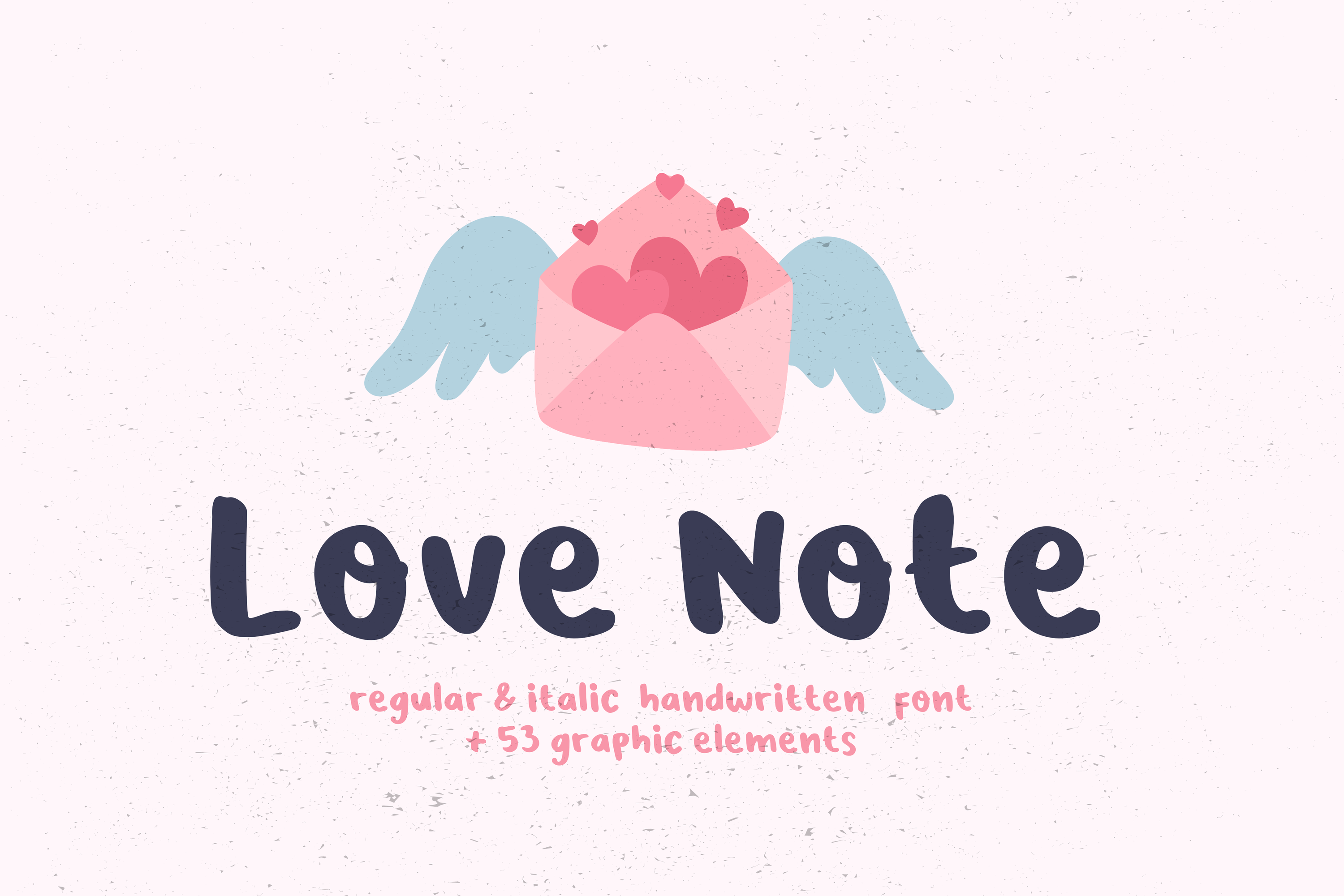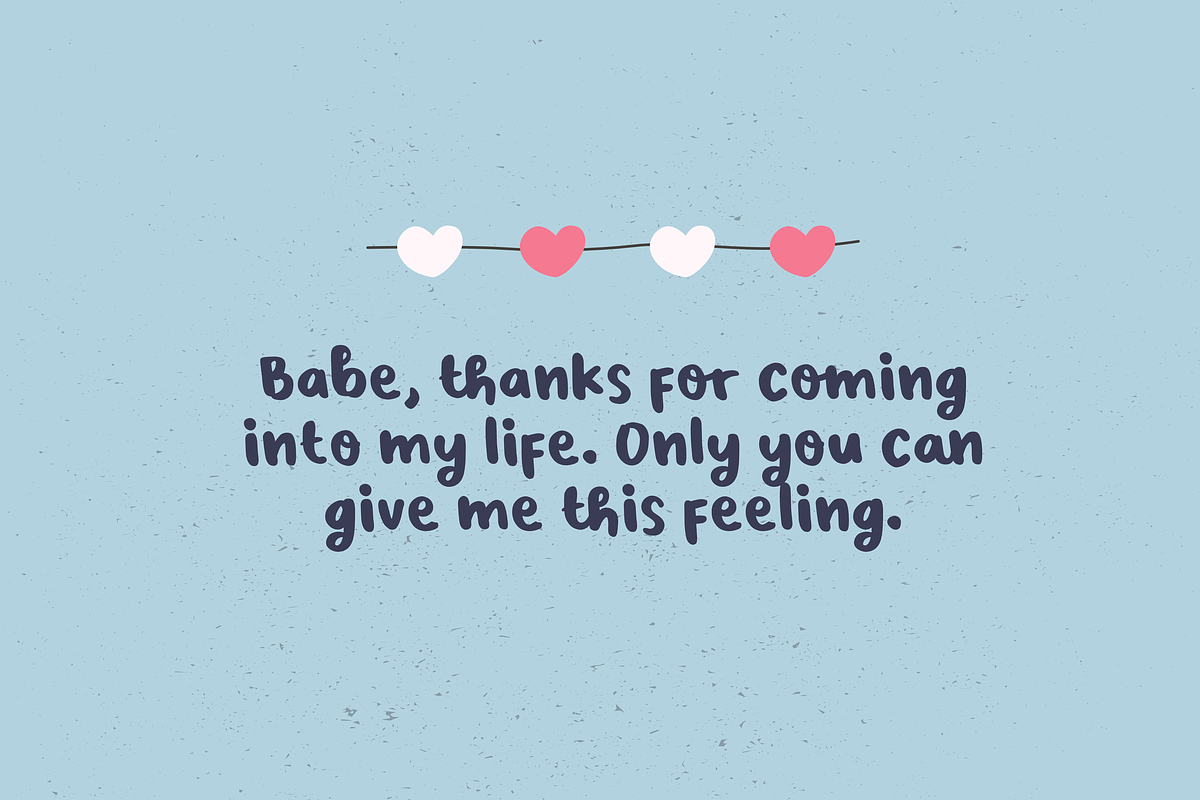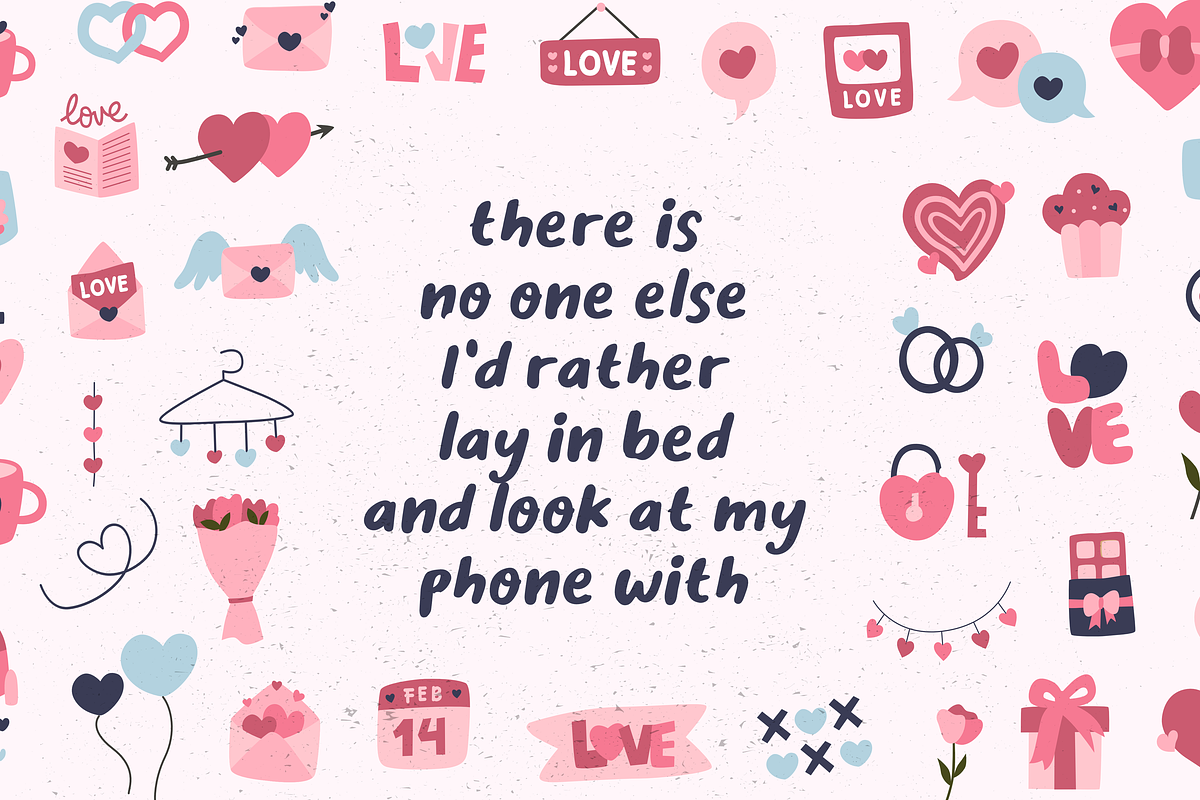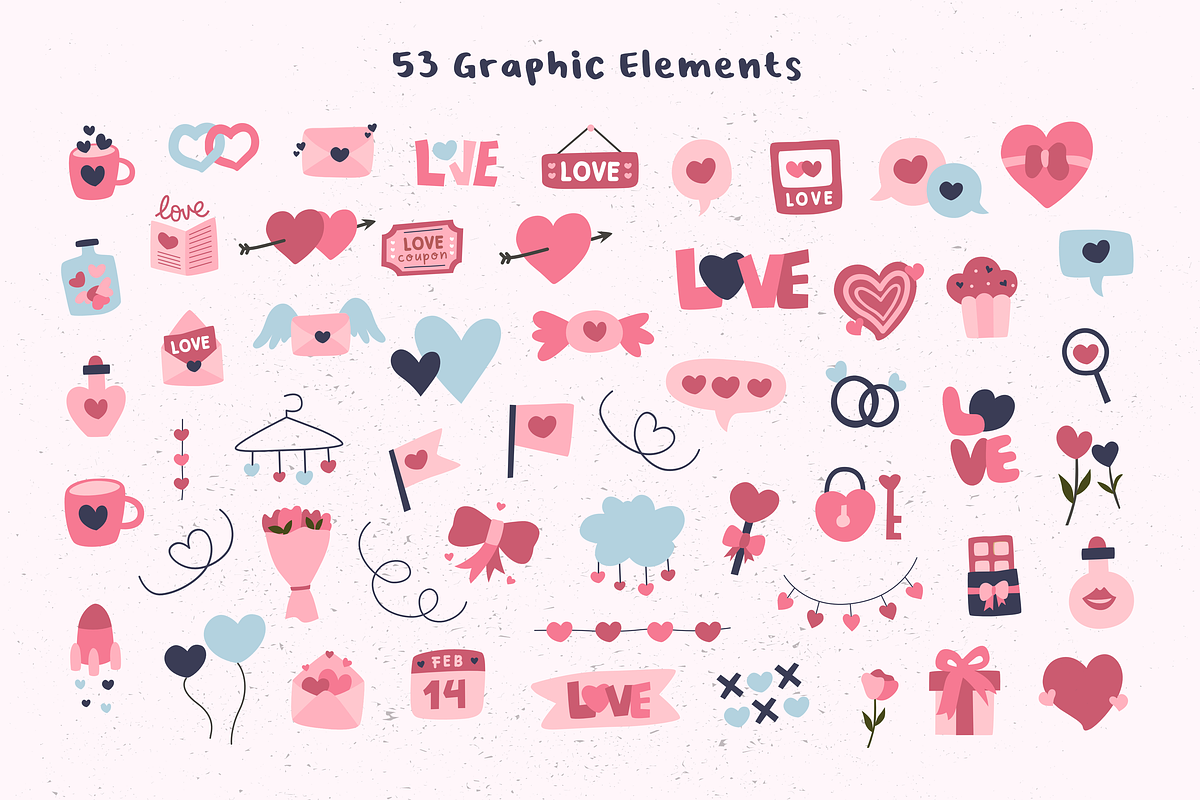
Love Note | Handwritten Font
Hello, Love Note is a sweet hand-lettered font. It is suitable for children's books, design creations, covers, illustrations, quotes, packaging, and some more.
Love Note is available in two types, regular and italic. Both have some pretty ligatures and alternates. Yes, we also add some beautiful illustrations with a lovely composition.